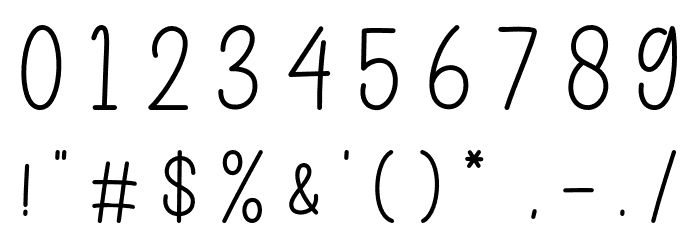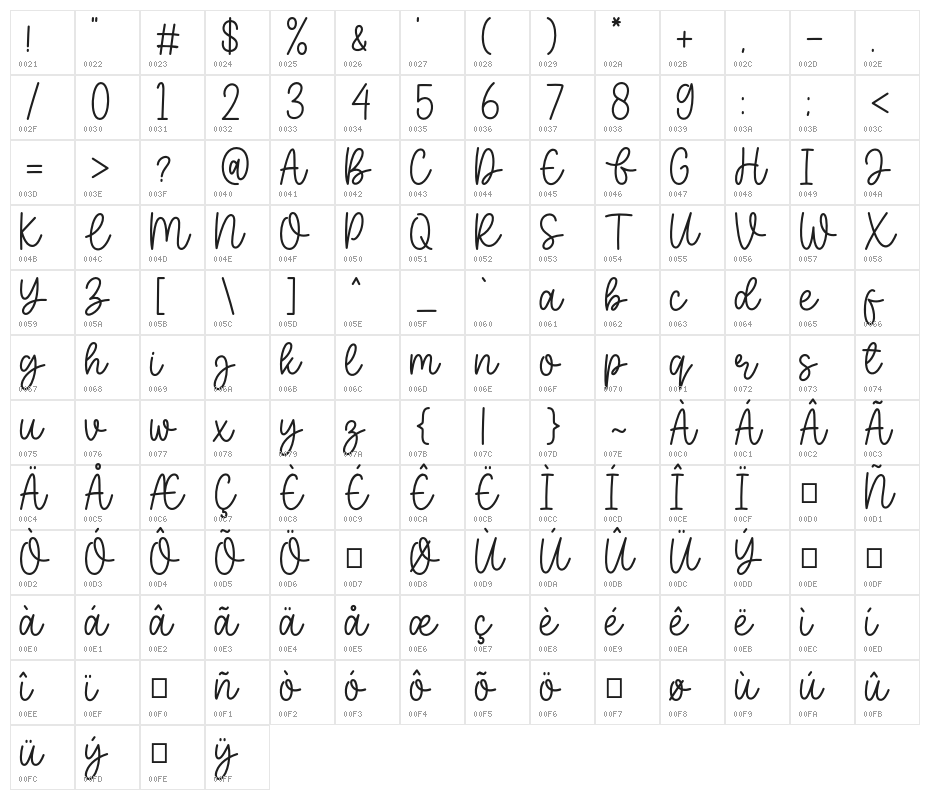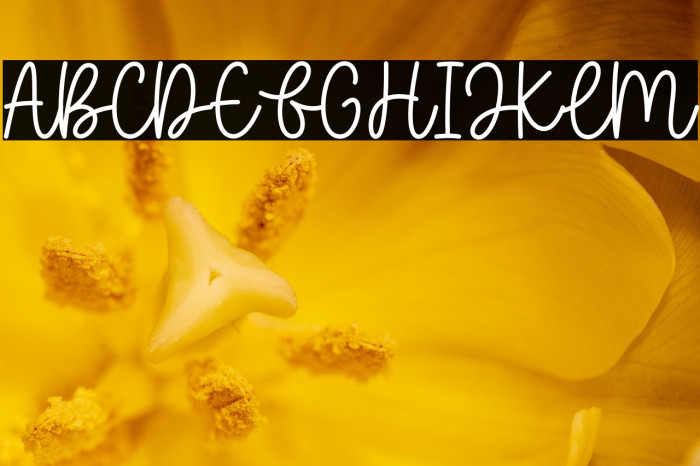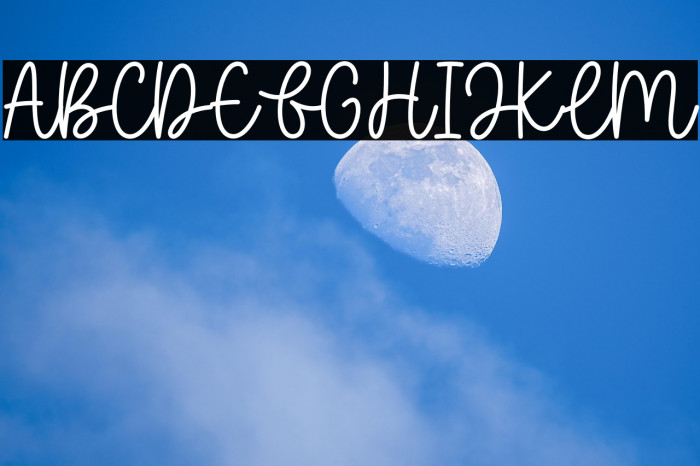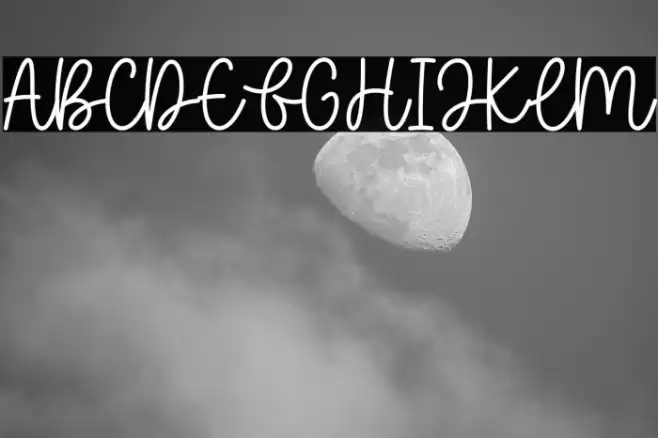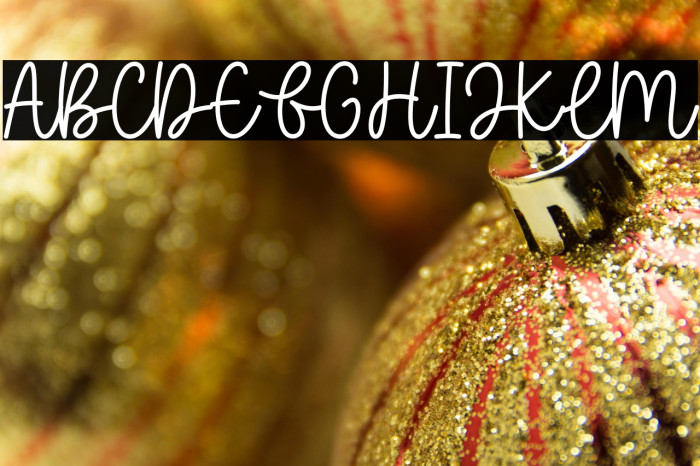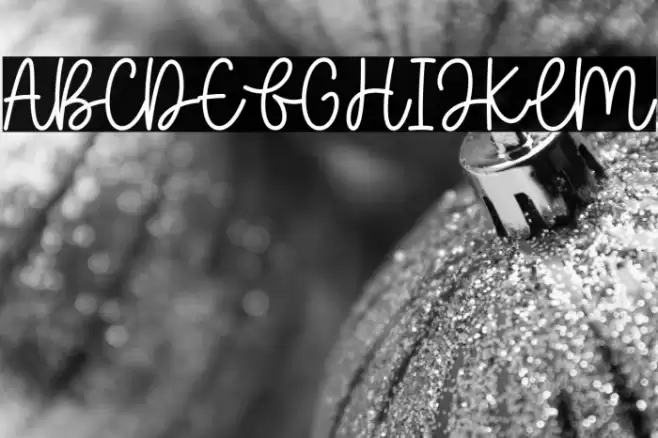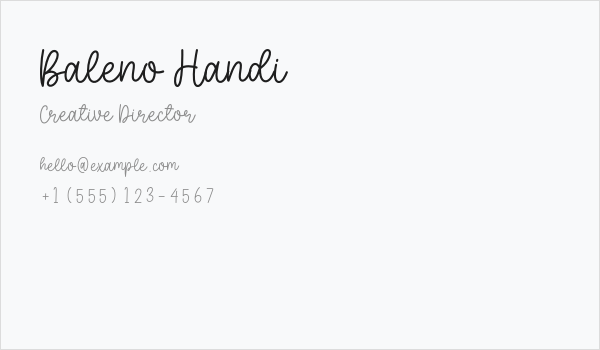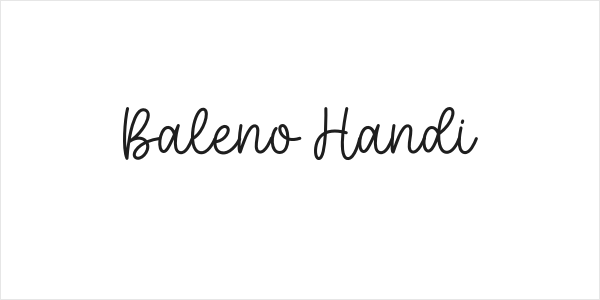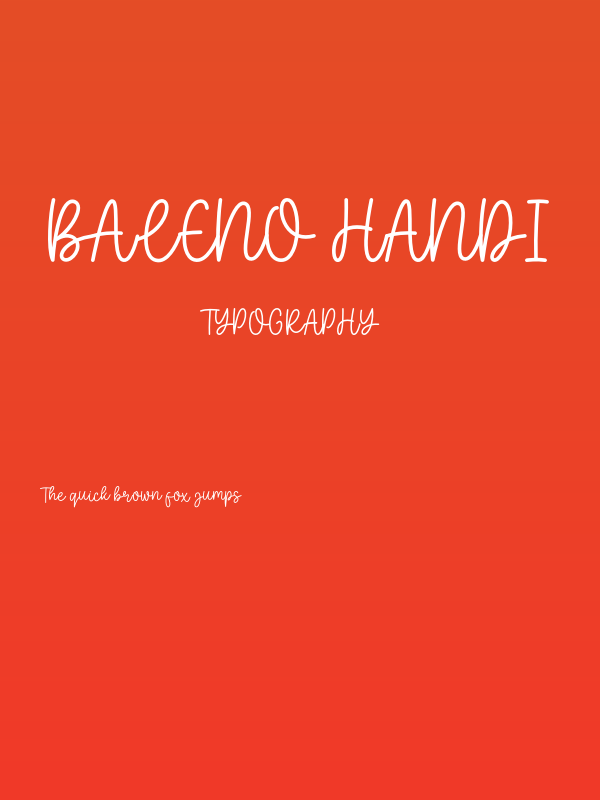
Baleno Handi Font
Baleno Handi Description
This font features a playful and flowing script style, characterized by its smooth, continuous strokes and rounded edges. The uppercase letters maintain a consistent height, while the lowercase letters exhibit a charming, handwritten quality with slight variations in size and form. The numerals are clear and legible, complementing the overall casual aesthetic. Special characters are integrated seamlessly, maintaining the font's cohesive appearance. This font exudes a friendly and approachable vibe, making it suitable for a variety of creative applications.
| Proposed Projects | Ideal for greeting cards, invitations, personal branding, and creative projects that require a friendly, informal touch. |